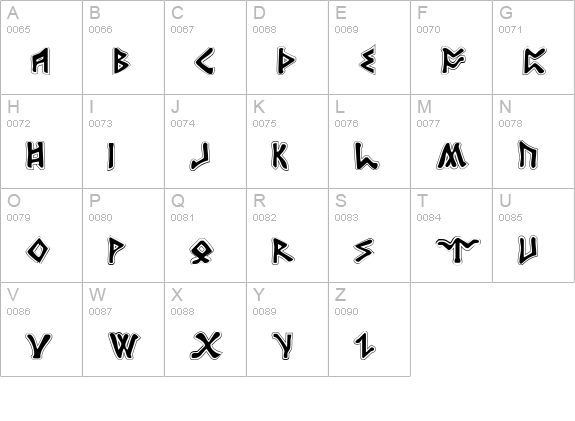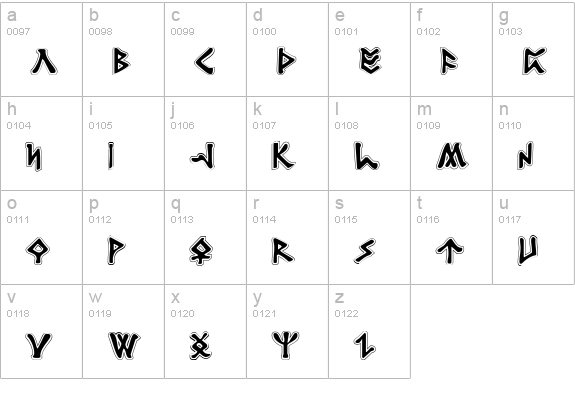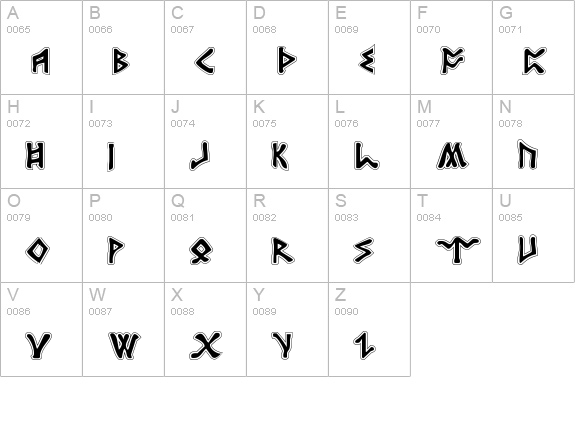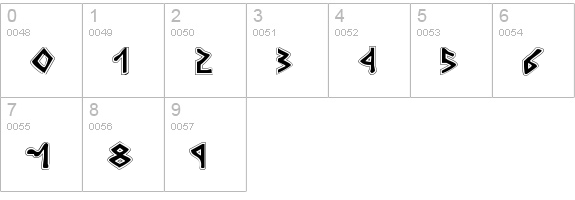
Rosicrucian Academy Font Details
Rosicrucian Academy font is a timeless and elegant typeface that exudes sophistication and charm. Its intricate details and graceful curves make it perfect for a wide range of design projects, from invitations to branding to editorial layouts. This font captures the essence of tradition while also offering a modern touch, making it versatile and suitable for various applications. One of the best features of Rosicrucian Academy font is that it is available for free download at FontsMarket.com. This means that you can enjoy using this exquisite font in your projects without any cost, adding a touch of class and refinement without breaking the bank. Whether you are a designer, a writer, or simply someone looking to enhance your creative projects, Rosicrucian Academy font is a perfect choice that won't cost you a penny. Download it today and elevate your designs with this beautiful and sophisticated typeface.